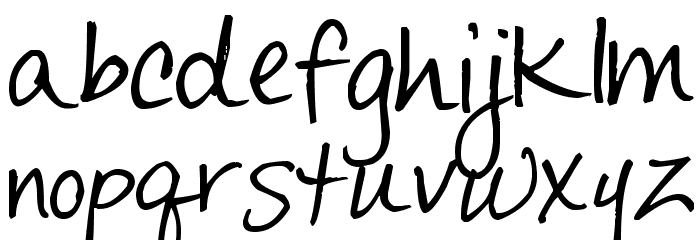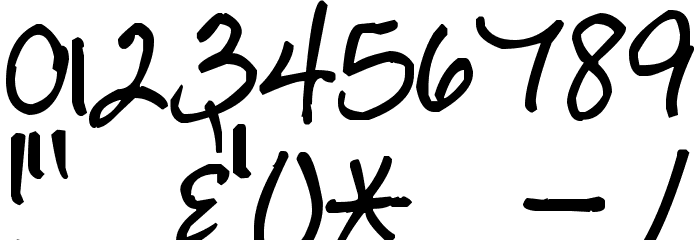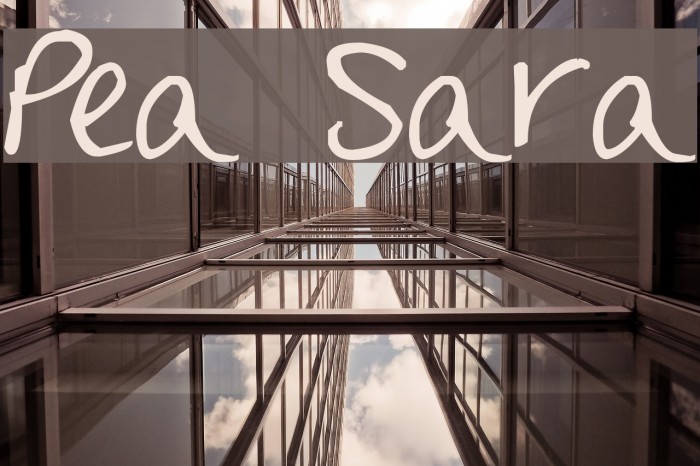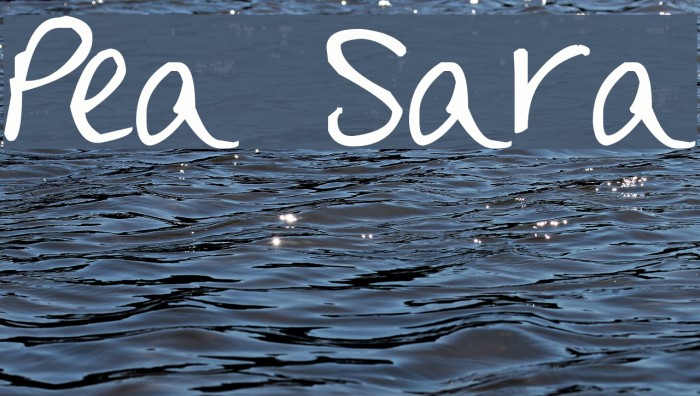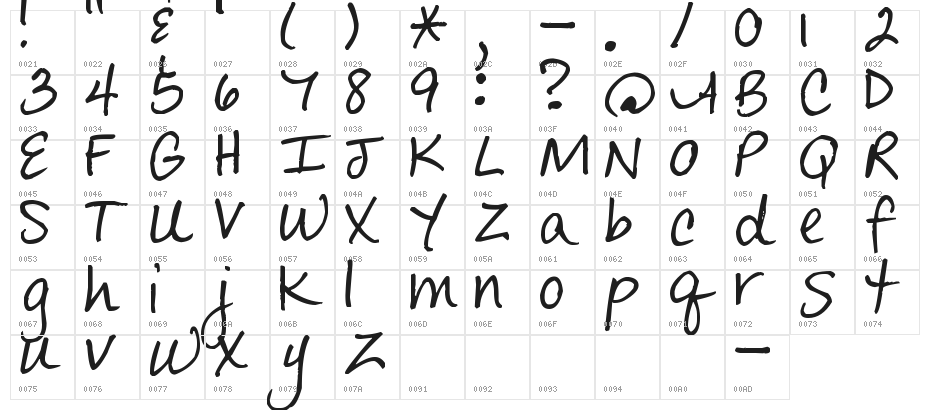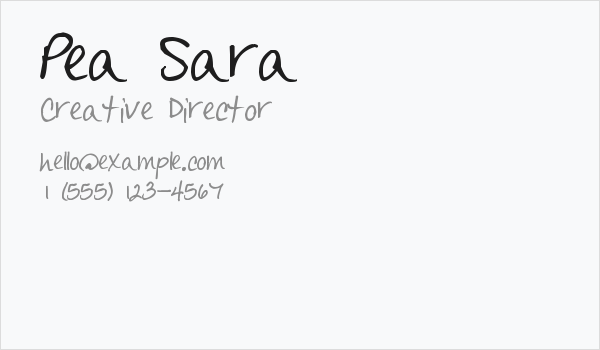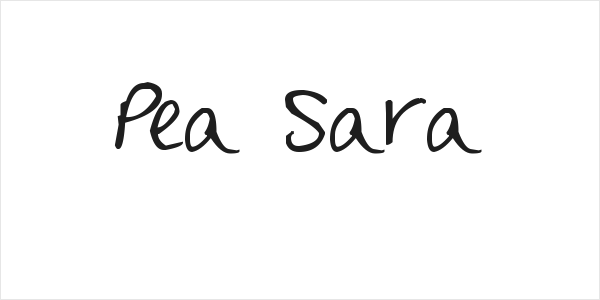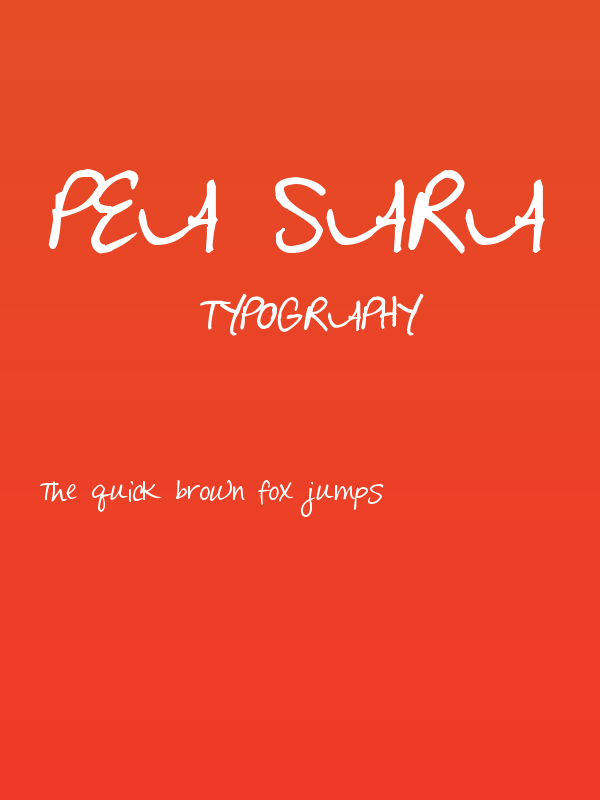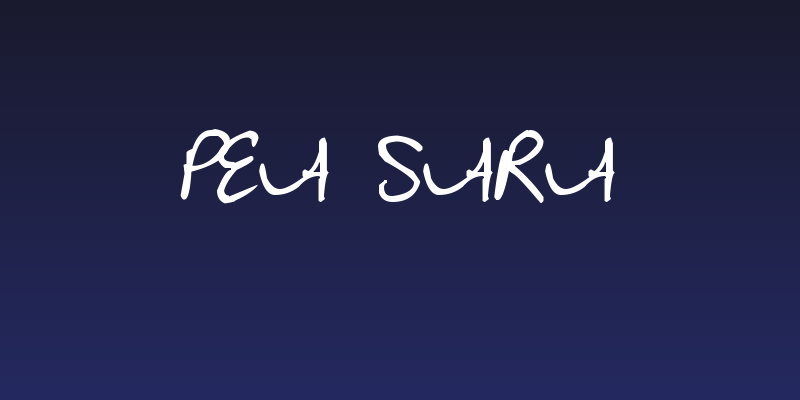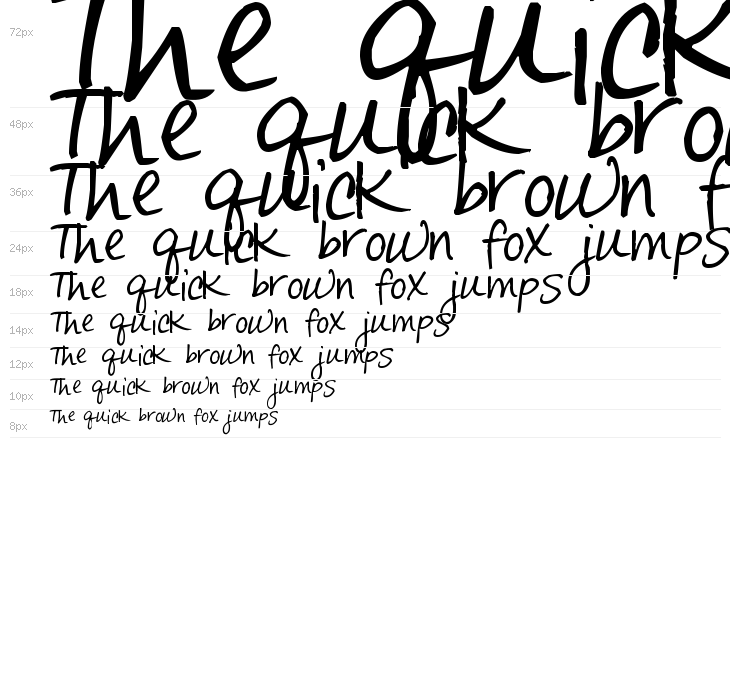
Pea Sara Font
This font exhibits a playful and casual handwritten style, characterized by its fluid and organic strokes. The letters are slightly slanted, giving a sense of motion and informality. The uppercase and lowercase letters maintain a consistent style, with rounded edges and varying stroke widths that add to its handwritten charm. The numbers and special characters follow the same aesthetic, ensuring a cohesive look across all elements. This font is perfect for projects that require a personal touch, such as invitations, greeting cards, or any creative design that benefits from a human element.
A playful, casual handwritten font with fluid strokes and a personal touch.
- Proposed Projects: Ideal for invitations, greeting cards, personal notes, and creative designs needing a human element.
- Overall Style: Casual, Playful
- Use Case: Headlines, Creative designs, Personal notes